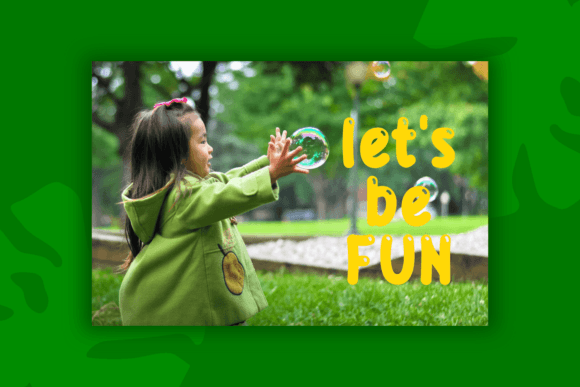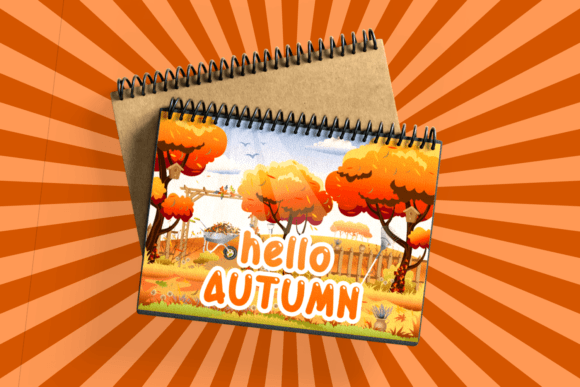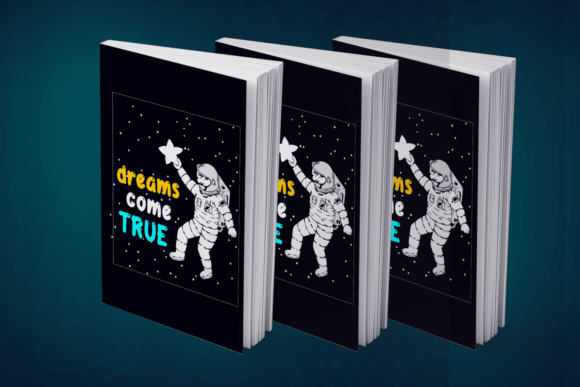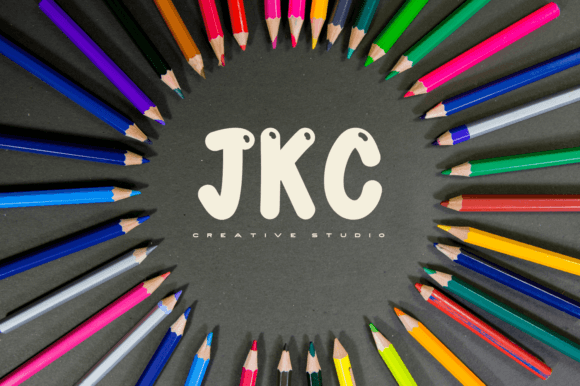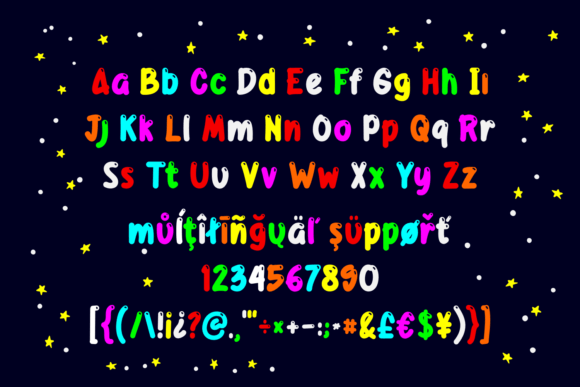
The Dreamy Font That Brings Imagination to Life: A Deep Dive into Dreams Font
I’ll never forget the time I was working on a children’s book project, and I just couldn’t seem to find the right font. The story was all about adventure, magic, and wonder, but every font I tried seemed either too boring or too over-the-top. That’s when I stumbled upon Dreams Font ✨, and it was like a dream come true (pun intended)! In this article, I’ll share my experience with this fun display font, its features, and how to make the most of it in your creative projects.
An Honest Review of Dreams Font
- ✨ Playful and whimsical design: Dreams Font is perfect for projects that require a touch of imagination and fun, such as kids’ books, drawing books, baby clothes, and birthday cards.
- ✅ Highly versatile: This font can be used for a wide range of creative projects, from apparel and T-shirts to social media graphics and party invitations.
- 💡 Easy to read: Despite its playful design, Dreams Font is surprisingly easy to read, even at smaller sizes.
While Dreams Font is an excellent choice for many projects, there are a few things to keep in mind ⚠️:
- 🤔 Not suitable for body text: Due to its playful and decorative nature, Dreams Font is best used for headlines, titles, or short phrases rather than lengthy paragraphs.
- ⚠️ Limited use of OpenType features: While Dreams Font does offer some OpenType features, it may not have the full range of features you’d find in more advanced fonts.
The Backstory Behind Dreams Font
According to the designer, Dreams Font was inspired by the world of imagination and fantasy 🌟. The goal was to create a font that would bring a sense of wonder and excitement to creative projects. With its playful design and versatile nature, Dreams Font has become a favorite among designers and crafters alike.
Q: What type of projects is Dreams Font best suited for?
A: Dreams Font is perfect for projects like kids’ books, drawing books, baby clothes, apparel, T-shirts, birthday cards, and more.